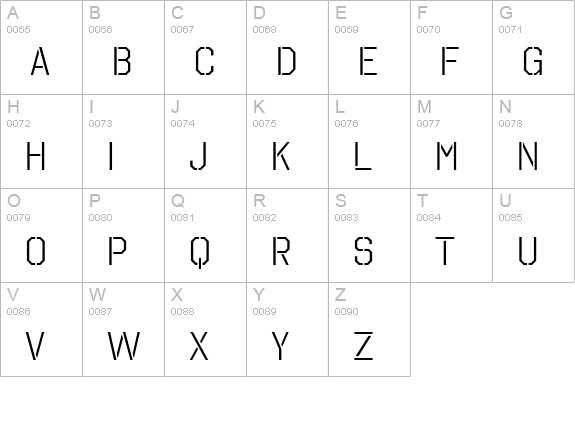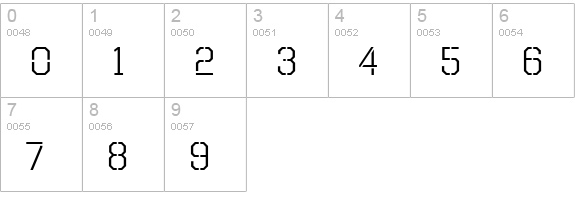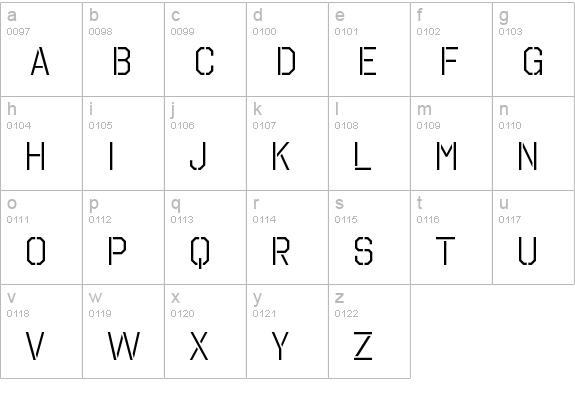
Octin Stencil Bk Font Details
Octin Stencil Bk is a bold and eye-catching font that exudes a strong and impactful presence. With its stenciled design, this font is perfect for making a statement in various design projects. The sharp edges and clean lines of Octin Stencil Bk give it a modern and industrial look that is both versatile and attention-grabbing. What's even better is that Octin Stencil Bk is available for free download at FontsMarket.com. This means you can easily access this stylish font and incorporate it into your projects without any cost. Whether you're creating posters, logos, or any other design piece that requires a bold and striking typeface, Octin Stencil Bk is a fantastic choice that will help your work stand out. Download it today and elevate your designs with this impressive font.